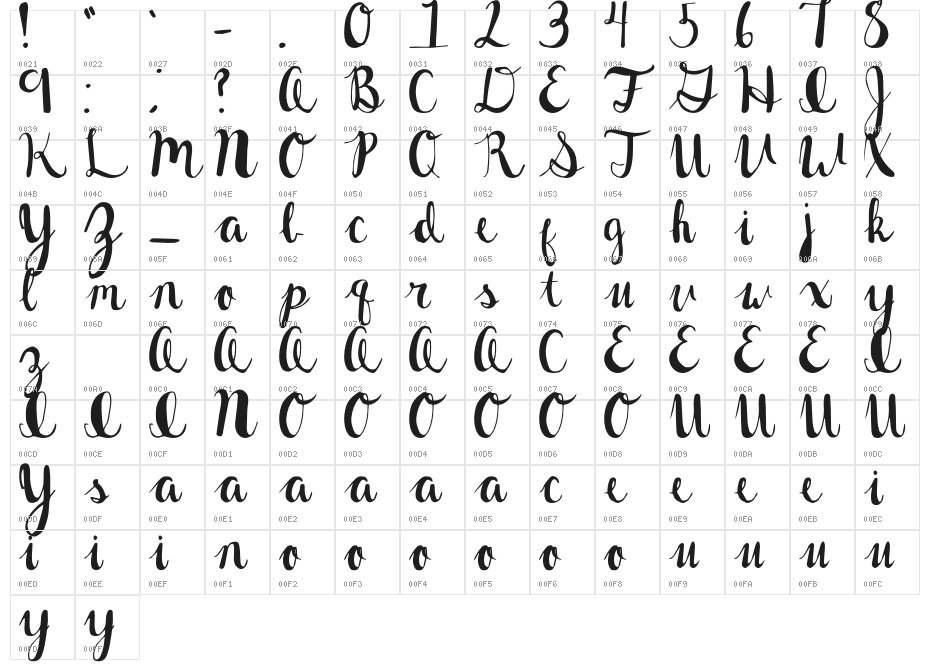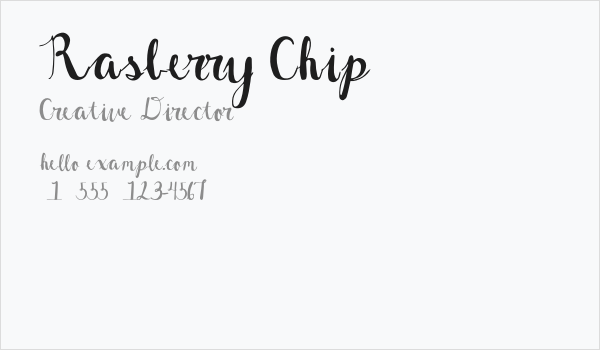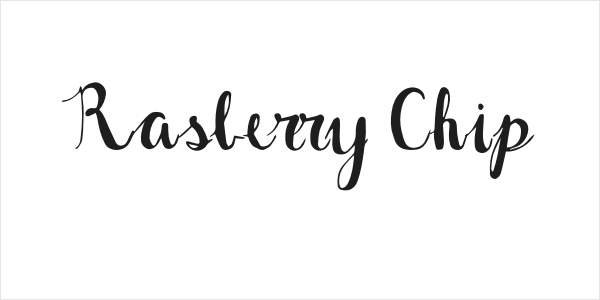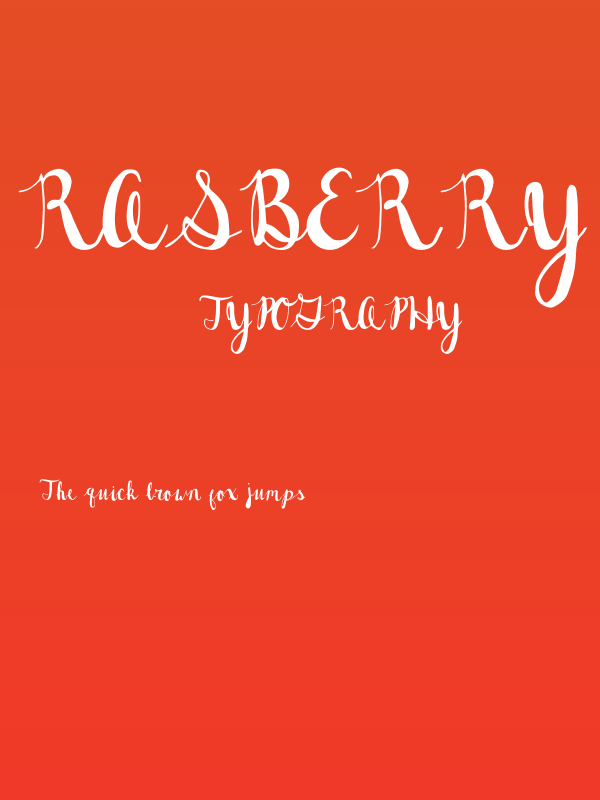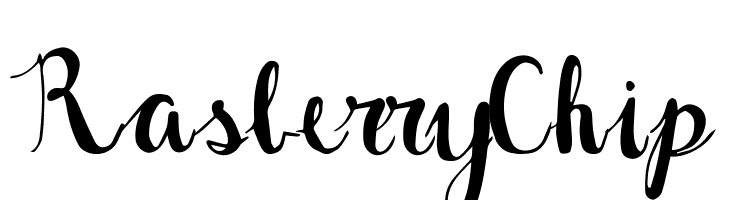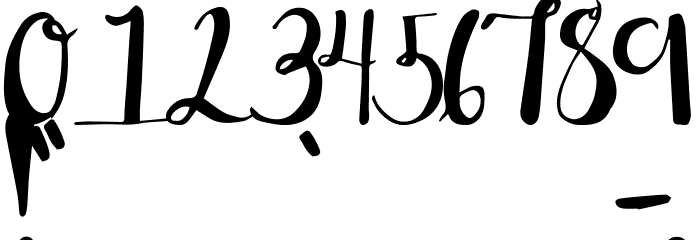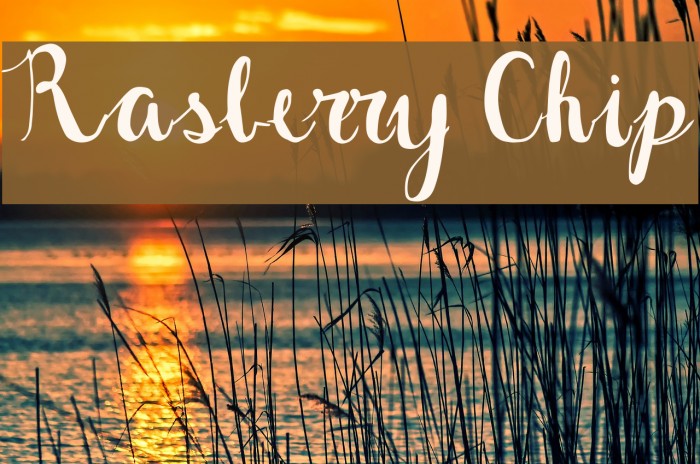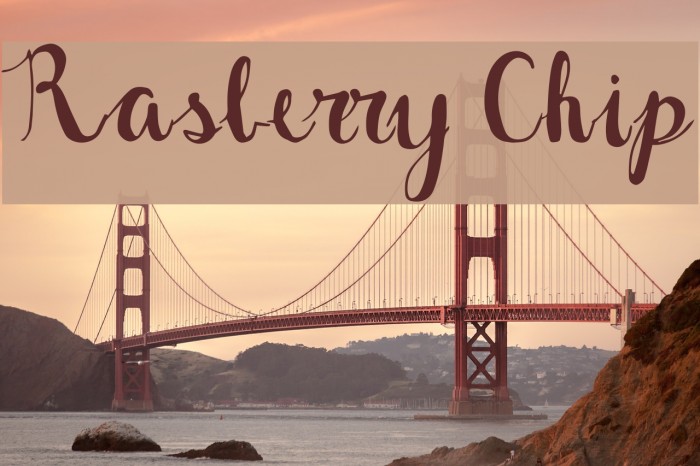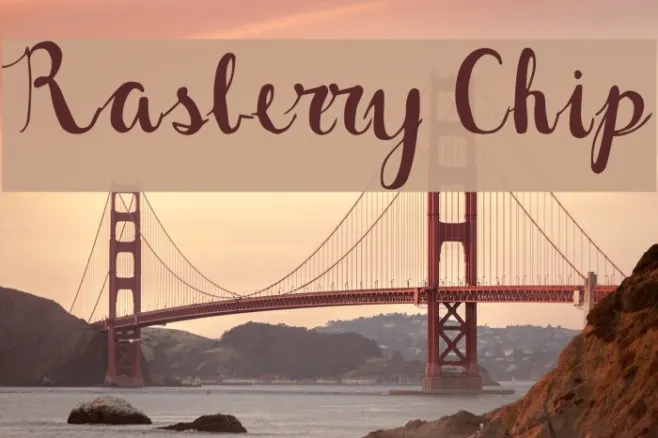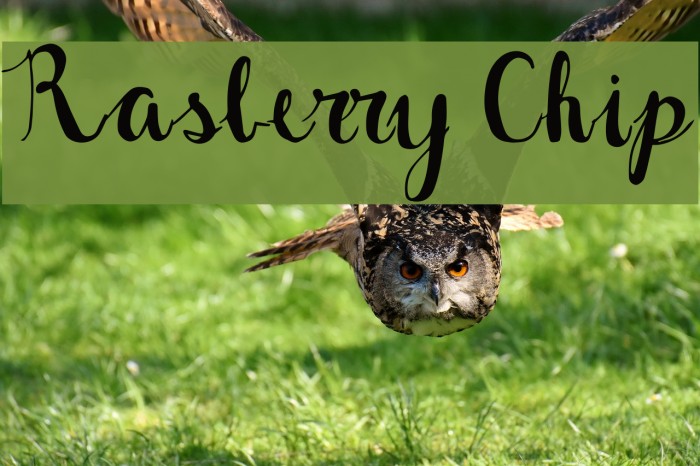
Rasberry Chip Font
Rasberry Chip Description
This font features a playful and whimsical script style, characterized by its flowing, cursive letterforms. The strokes are dynamic, with varying thickness that adds a lively and energetic feel. The uppercase letters are elegantly looped and slightly exaggerated, while the lowercase letters maintain a consistent, fluid motion. The numbers and special characters follow the same playful aesthetic, making them suitable for creative and informal designs. The overall appearance is both artistic and approachable, perfect for projects that require a touch of personality and flair.
| Use Case | Logos, Invitations, Creative Branding |
| Proposed Projects | Ideal for greeting cards, invitations, branding for creative businesses, and playful social media graphics. |